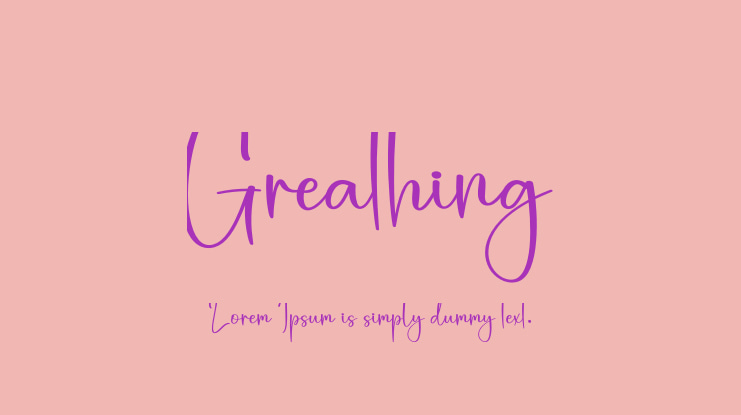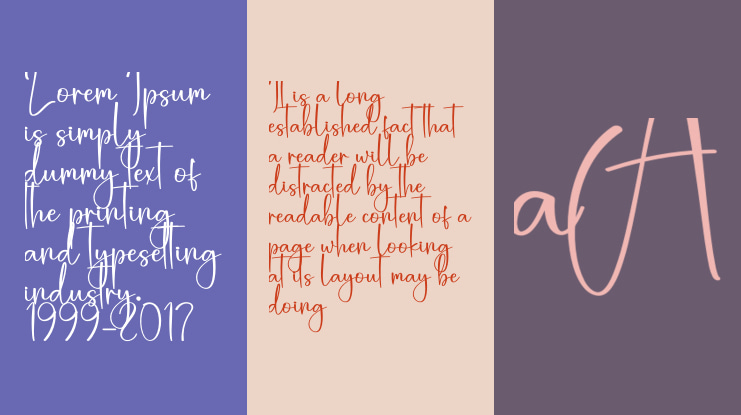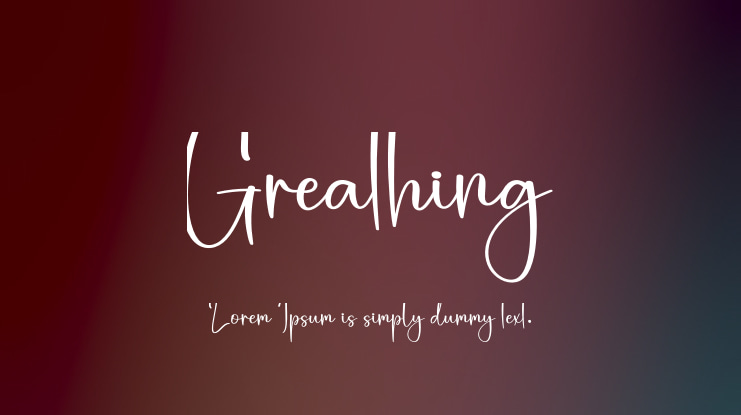
The latest style letters are perfect for wall displays, wedding invitations, social media post logos,
and any project that requires tasteful handwriting.